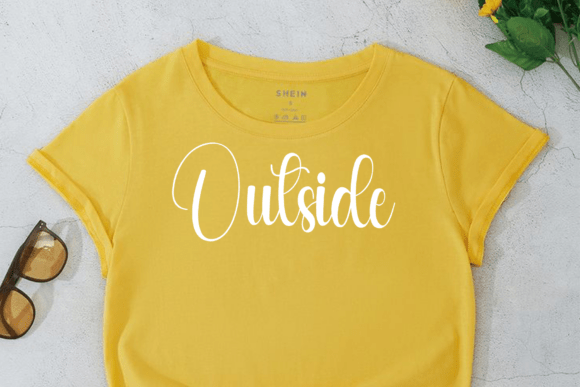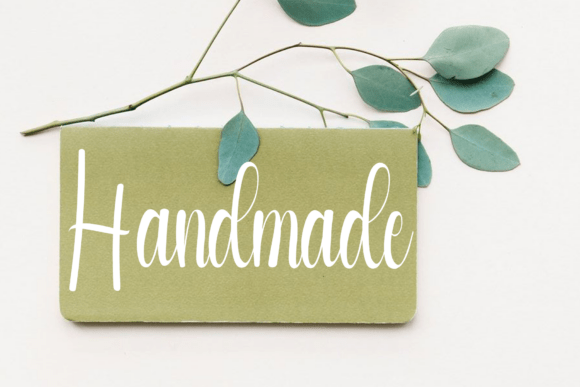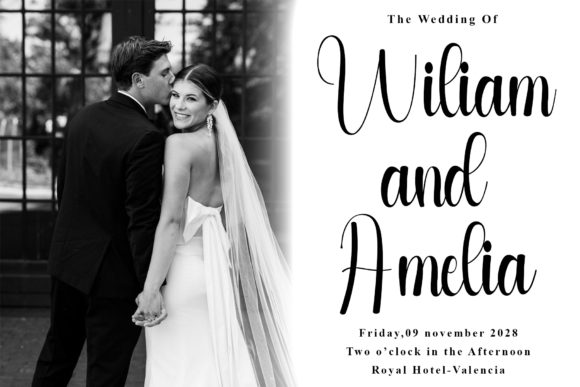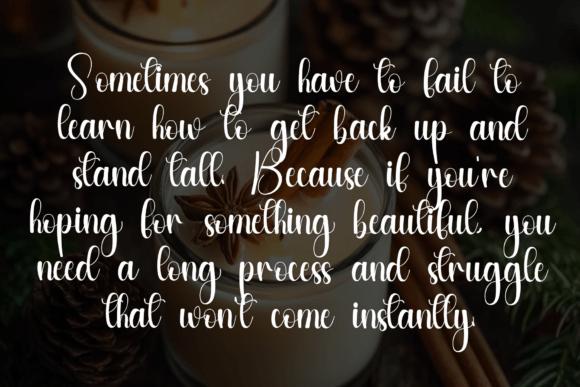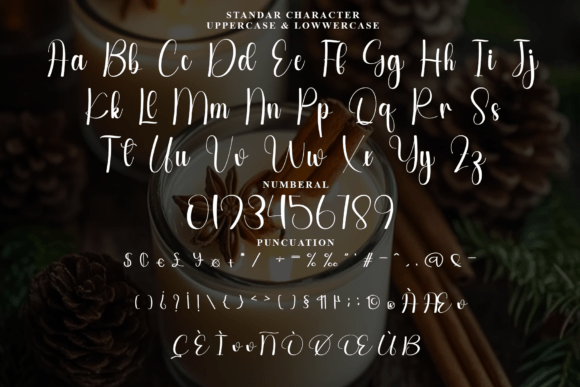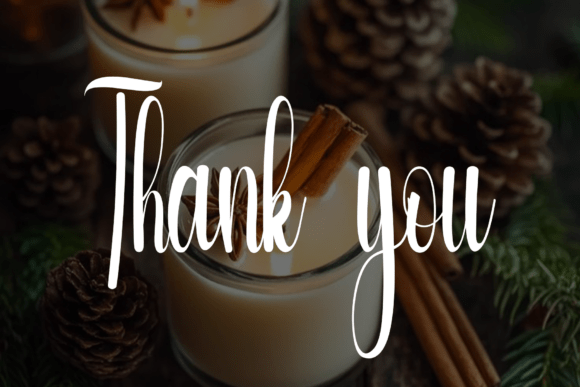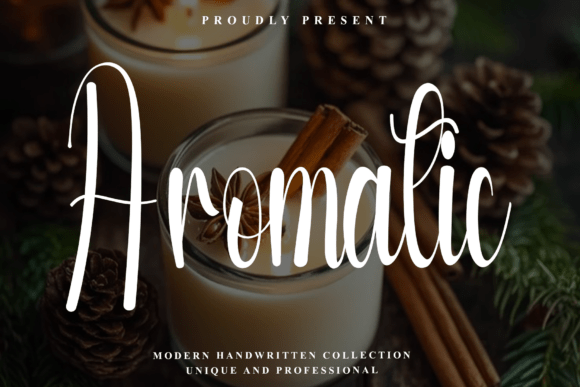
Introducing Aromatic Font: Elevate Your Design with a Sophisticated Autumnal Voice
In the world of typography, a font can make or break the visual identity of a brand, product, or event. For designers and crafters seeking to infuse their projects with a touch of sophistication and seasonal charm, Aromatic Font is an exceptional choice. This modern script font is specifically designed to evoke the warmth and elegance of autumn, making it perfect for a variety of applications, from marketing and packaging to editorial headers and event invitations.
The Unique Characteristics of Aromatic Font
Aromatic Font is part of a curated collection of modern handwritten fonts, distinguished by its high-contrast strokes, vertically elongated letterforms, and graceful, looping ascenders. These features combine to create a unique and professional visual voice that is both eye-catching and refined. The font’s thick, grounded downstrokes provide a sense of stability, while the delicate hairline connectors add a touch of whimsy and fluidity.
One of the standout features of Aromatic Font is its ability to mimic high-end inkwork. The font’s design is inspired by the art of traditional calligraphy, with each letterform carefully crafted to evoke the feeling of ink on paper. This makes Aromatic Font an excellent choice for designers and crafters seeking to add a touch of luxury and sophistication to their projects.
Applications for Aromatic Font
Aromatic Font is a versatile typeface that can be used in a variety of contexts, from seasonal marketing campaigns to artisanal food packaging, boutique event invitations, and sophisticated editorial headers. Here are just a few examples of how this font can elevate your design:
- Autumn Marketing: Create eye-catching seasonal campaigns with Aromatic Font, perfect for promoting fall-themed products, services, or events.
- Artisanal Food Packaging: Add a touch of elegance and sophistication to your food packaging with Aromatic Font, ideal for specialty foods, wine labels, or craft beverages.
- Boutique Event Invitations: Make your event invitations stand out with Aromatic Font, perfect for weddings, harvest festivals, or other upscale gatherings.
- Sophisticated Editorial Headers: Use Aromatic Font to add a touch of refinement and style to your editorial content, from fashion and lifestyle publications to food and travel magazines.
Why Choose Aromatic Font?
With so many fonts available, why choose Aromatic Font for your design projects? Here are just a few reasons:
- Unique and Professional: Aromatic Font offers a distinctive and polished visual voice that will set your designs apart from the competition.
- High-Quality Design: With its high-contrast strokes, elegant letterforms, and attention to detail, Aromatic Font is a cut above the rest.
- Versatile: Aromatic Font can be used in a wide range of applications, from digital marketing to print materials.
- Elegant and Sophisticated: Aromatic Font exudes refinement and luxury, making it perfect for high-end brands, products, and events.
In conclusion, Aromatic Font is an exceptional choice for designers and crafters seeking to add a touch of sophistication and seasonal charm to their projects. With its unique characteristics, versatility, and high-quality design, this font is sure to elevate your designs and leave a lasting impression. Whether you’re working on autumn marketing campaigns, artisanal food packaging, boutique event invitations, or sophisticated editorial headers, Aromatic Font is the perfect asset to help you achieve your creative vision.